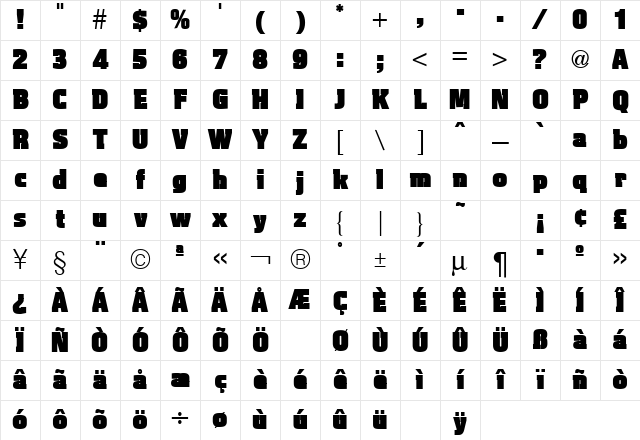
Aquarius Ten Regular
Design Context for Aquarius Ten
Aquarius Ten is a composed and adaptable typeface that performs quietly and consistently across a wide range of design contexts.
Pro Tip: Use Aquarius Ten in both headline and body roles to test its range before committing to a single application.